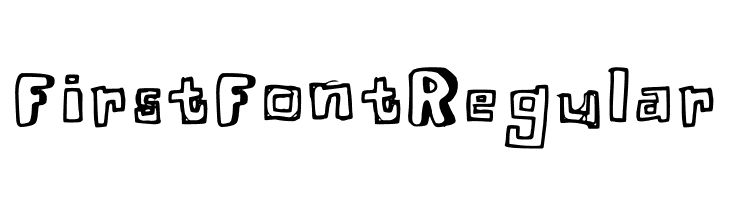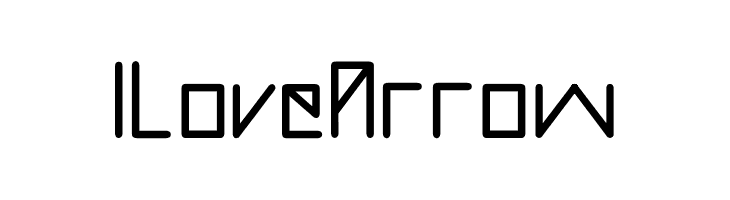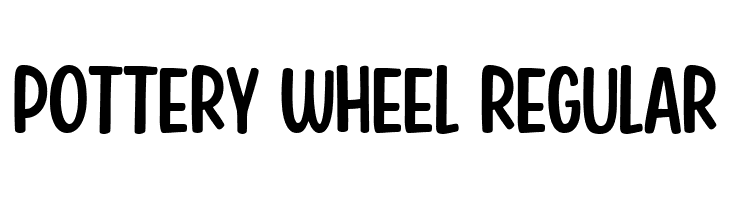
( Fonts by Noah Type )
A bold, italicized font with a jagged, energetic design.
A bold, wave-patterned decorative font with a modern flair.
( Fonts by Igino Marini )
Intricate floral and ornamental design with a vintage, decorative style.
( Fonts by Dave Gandy )
A clean, modern sans-serif font with uniform stroke widths and excellent readability.
( Fonts by Aman Karna )
A playful, twisting font with a hand-drawn, artistic style.
( Fonts by Septyn )
A versatile set of bold, solid black silhouette icons featuring diverse symbols.
( Fonts by Al Ghul )
A whimsical, curly font with playful loops and swirls.
( Fonts by Inermedia Studio )
A playful, bold, and rounded hand-drawn font with a whimsical style.
( Fonts by www.movefont .com )
A bold, dynamic handwritten font with playful, irregular strokes.
( Fonts by John Caserta )
Bold, geometric icon set with high clarity and minimal detail.